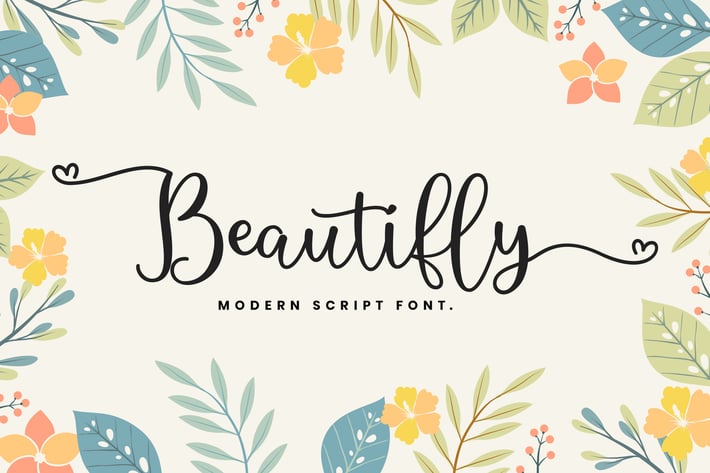
Beautifly Bold and Bouncy Handwritten Script Font
Beautifly is an elegant and flowing handwritten font. It is PUA encoded which means you can access all of the glyphs and swashes with ease! It features a varying baseline, smooth lines, gorgeous glyphs and stunning alternates. It maintains its classy calligraphic influences while feeling contemporary and fresh. Fall in love with this font and bring your projects to the highest levels!